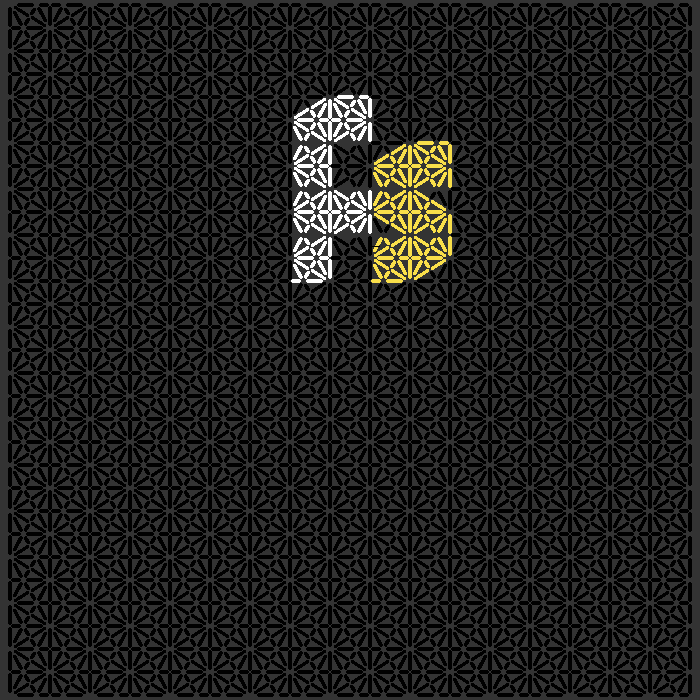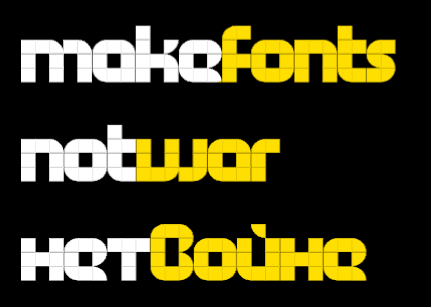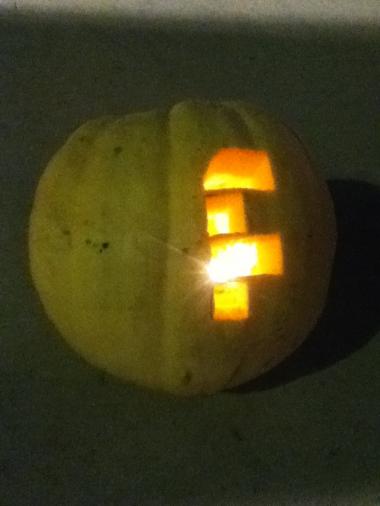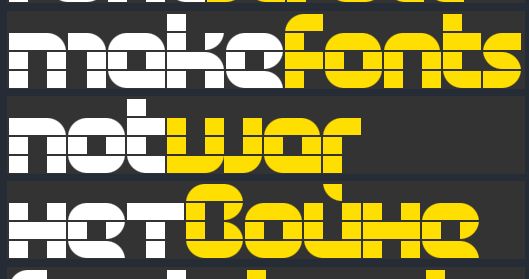
I've been having alot of fun with your Structurosa series Paul. I'll be looking for your latest entries!
and i finally settled on a name... if i could combine them all, it would be Structurosa Pro! with lots of stylistic sets, of course. :D
Being one that actually uses Cyrillics all day, I'm not very keen on your Cyrillic "ф", as well as some others.
would you have liked a double wide ф better? what other characters do you not like?
It would be very nice if you made æ ø å chars to. Living in Norway :S
A great one!
Excellent! Love it.
great, it looks so simple and clear
A really smoot looking font.
Very sleek, clean font. Great for headlines.
This font could go well with more glyphs. The letters a, o and u will have a dieresis along with
the sharp s
done and done. :^D
Now those glyphs is what i asked for. The a, o and u do have the dieresis and the sharp s is here
Practical and elegant.
I love its rounds & the lines in between i think i would use it in making ma 3D logo i would inform you with it :)
now with accented characters + greek! criticism is welcome.
When i saw the change you made to Structurosa. I thought i would change StructPlus to include more latin and Hebrew characters.
ß ä å æ ö ø ü
They were nice but i like it the way it is now
the non-latins might be a bit dodgy, esp the hebrew. any critiques are certainly welcome.
Maybe you need more characters
(e.g Thai and Arabic)
very nice you typography :)
good cyrillic :)
nice one, but just to ask: did you take inspiration from fontstruct right? anyway, I liked it.
yes, of course. if you read the description it says: 'I wasn't satisfied with either of the current logo expansions, so i made my own.'
This is one of the best font's I have ever seen, all my friends know that I am very hard to impress, so there you go. There are lots of clones, and way more downloads than mine. See for yourself! 4 fontss, 1 download. I give it a 9.9999999999999999999/10.
One of a kind :D!! Looks Awesome!!! Keep up the good work!!